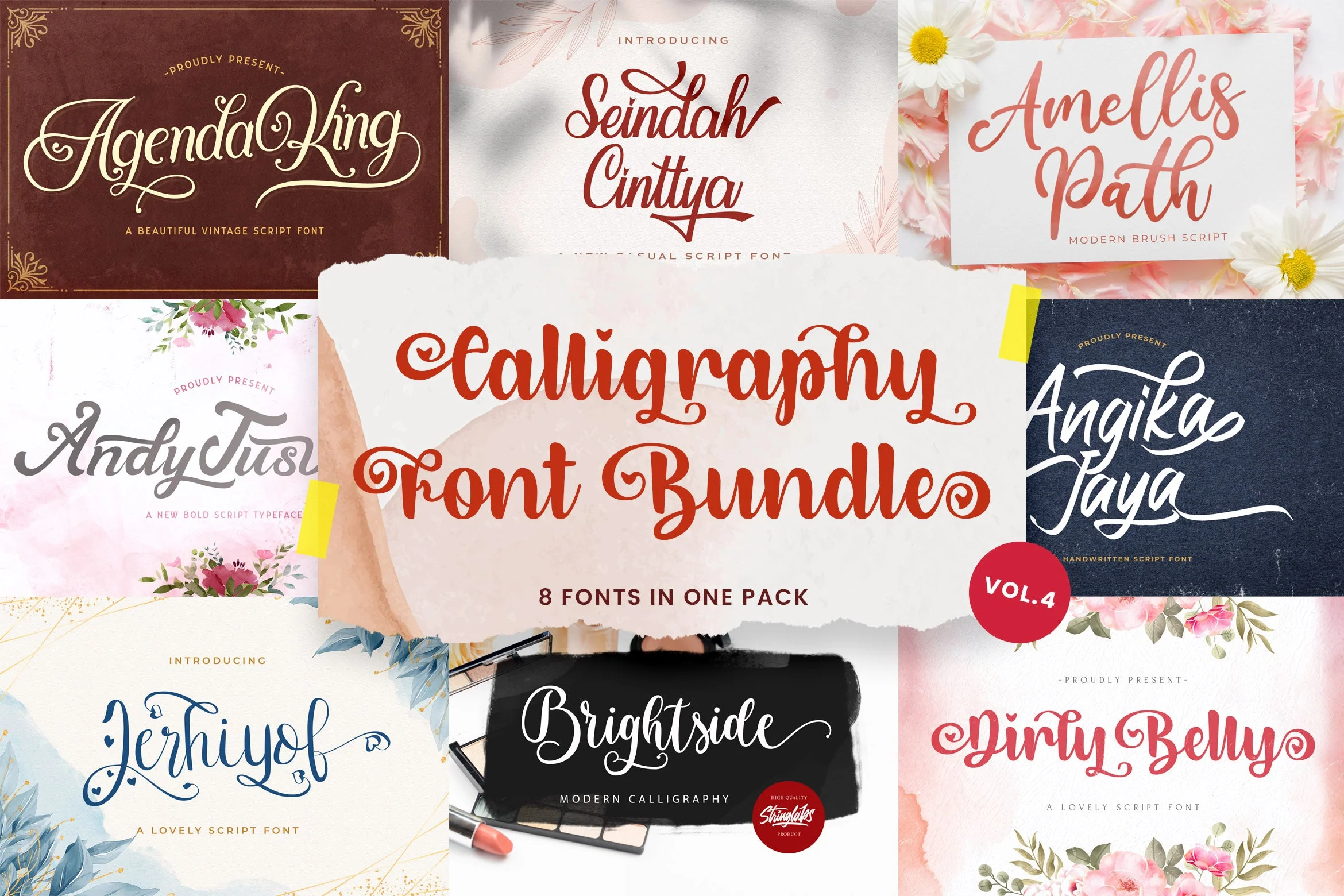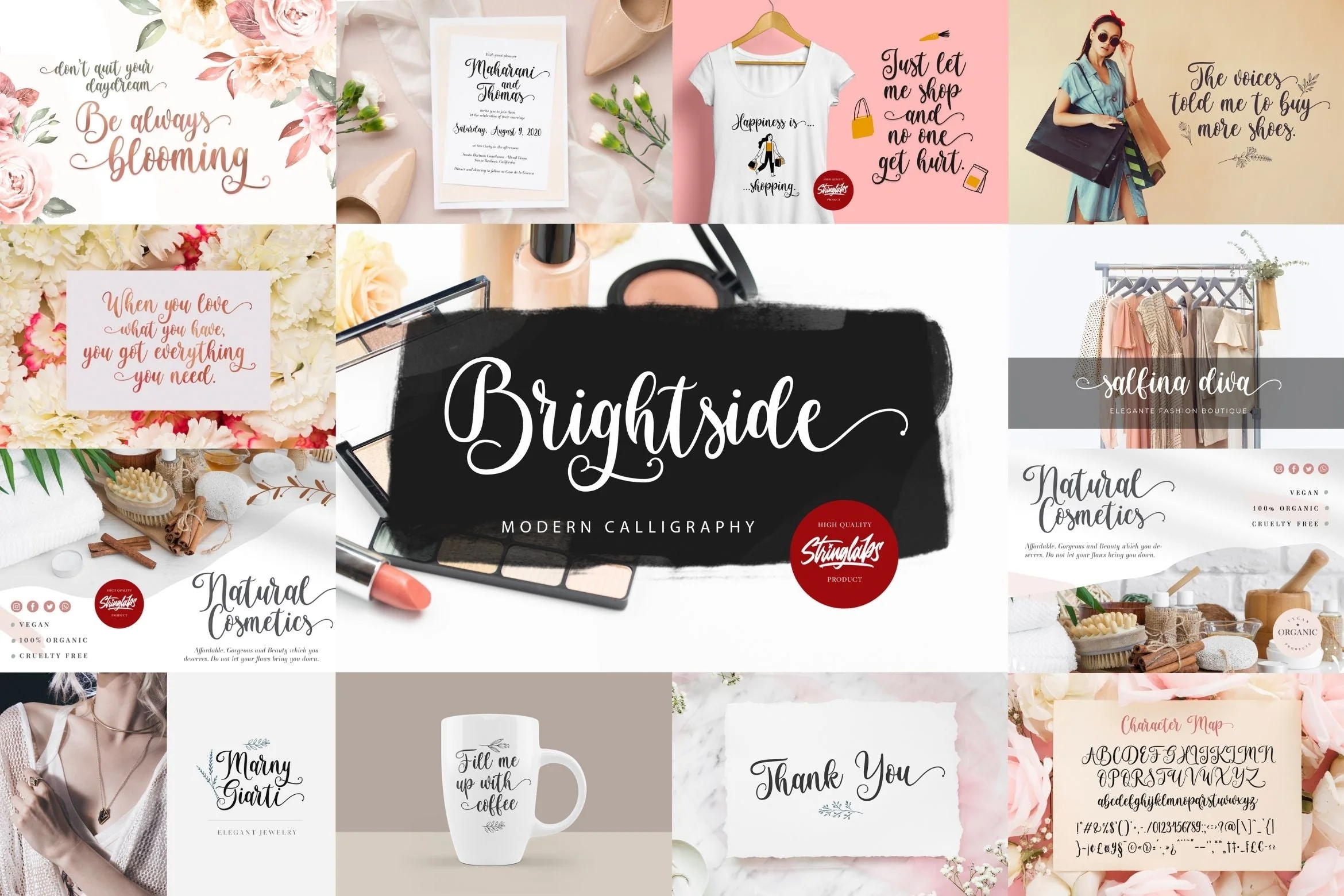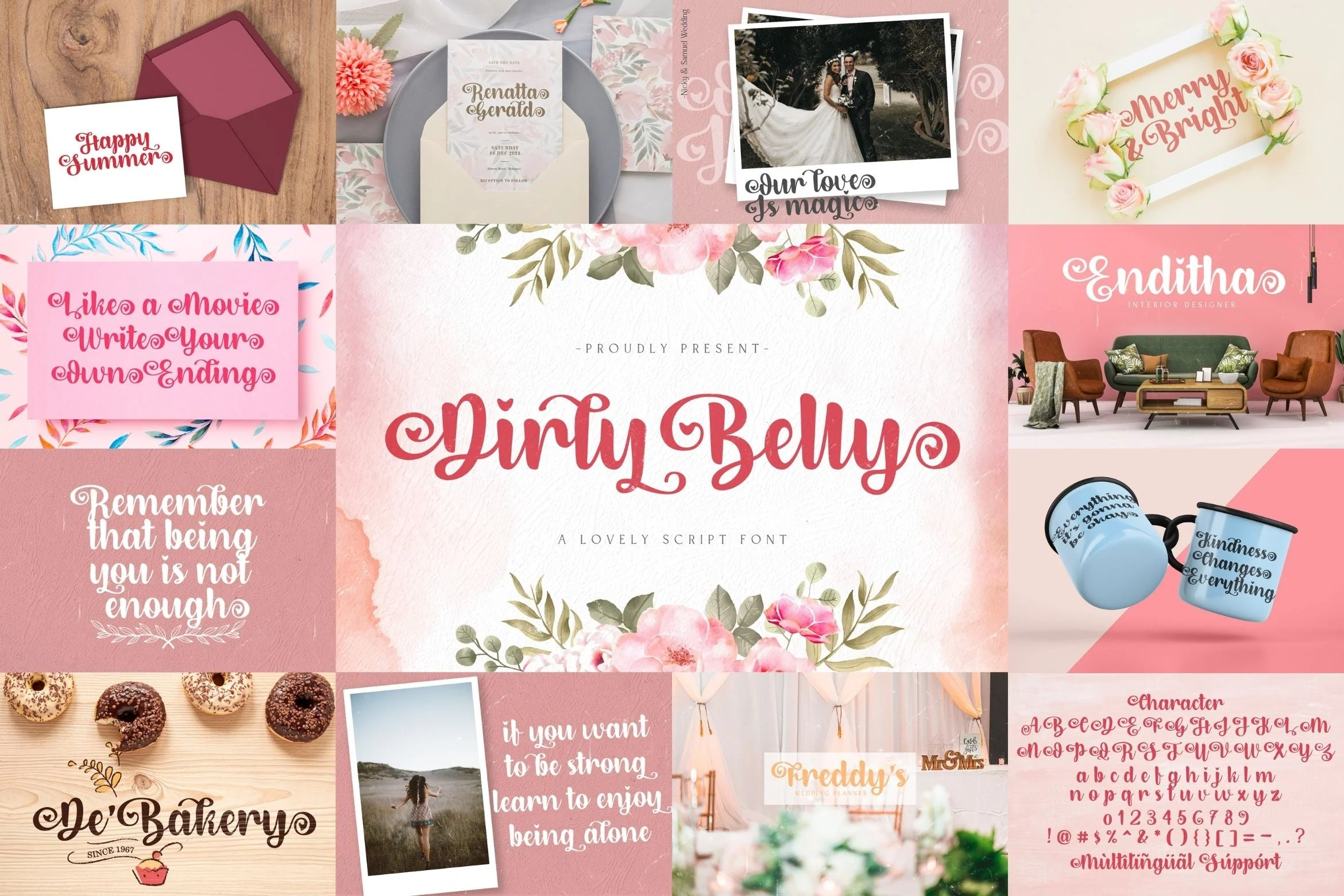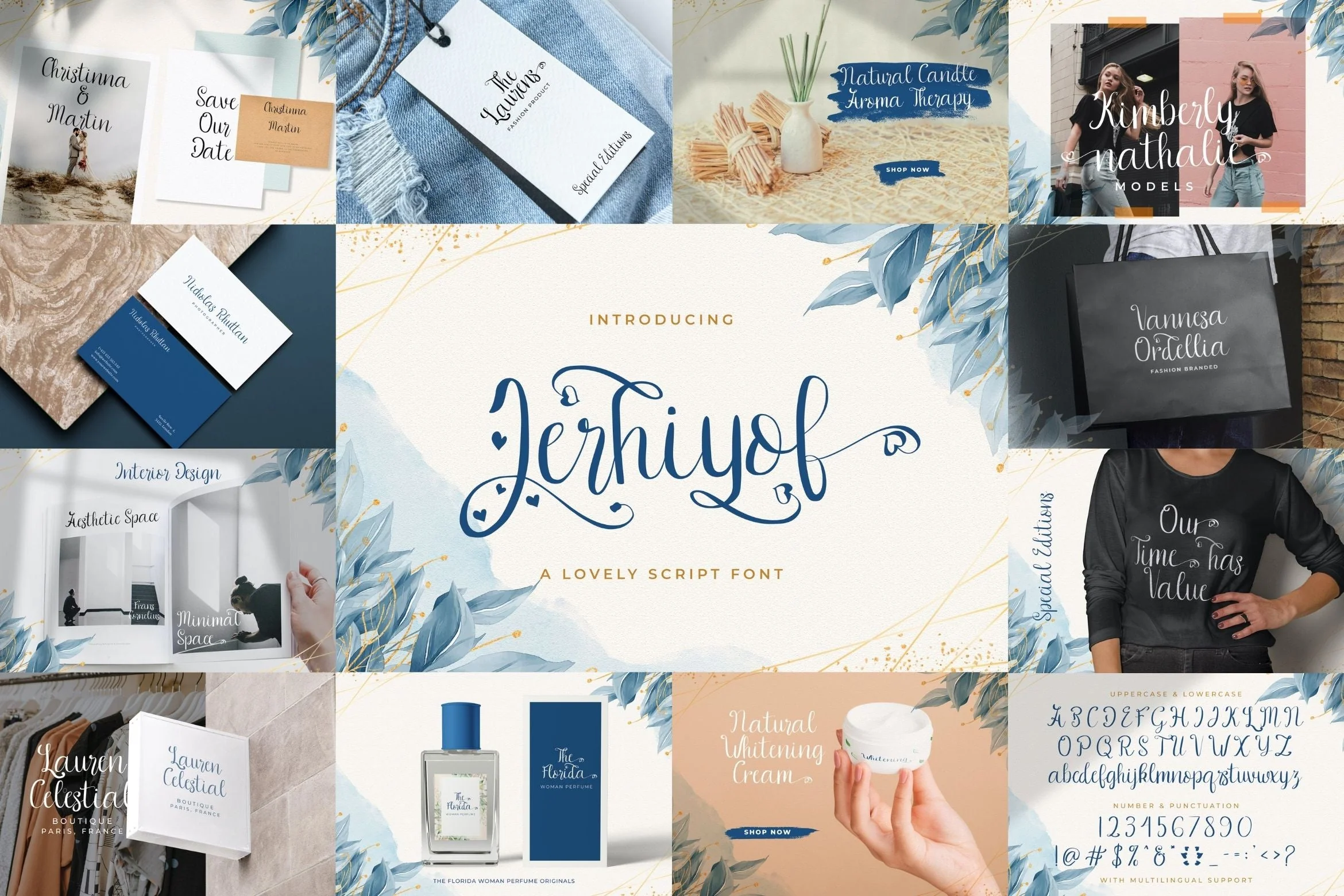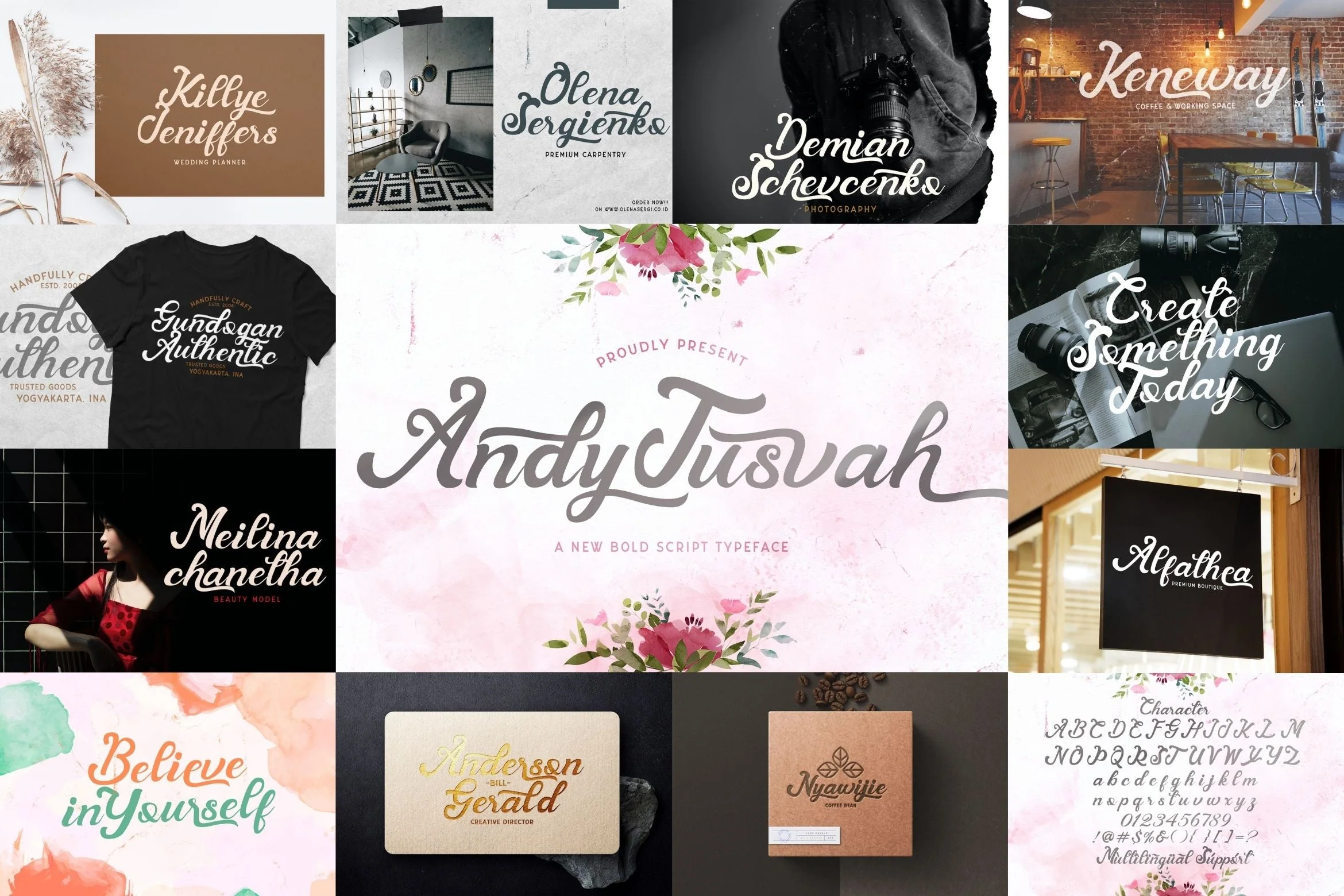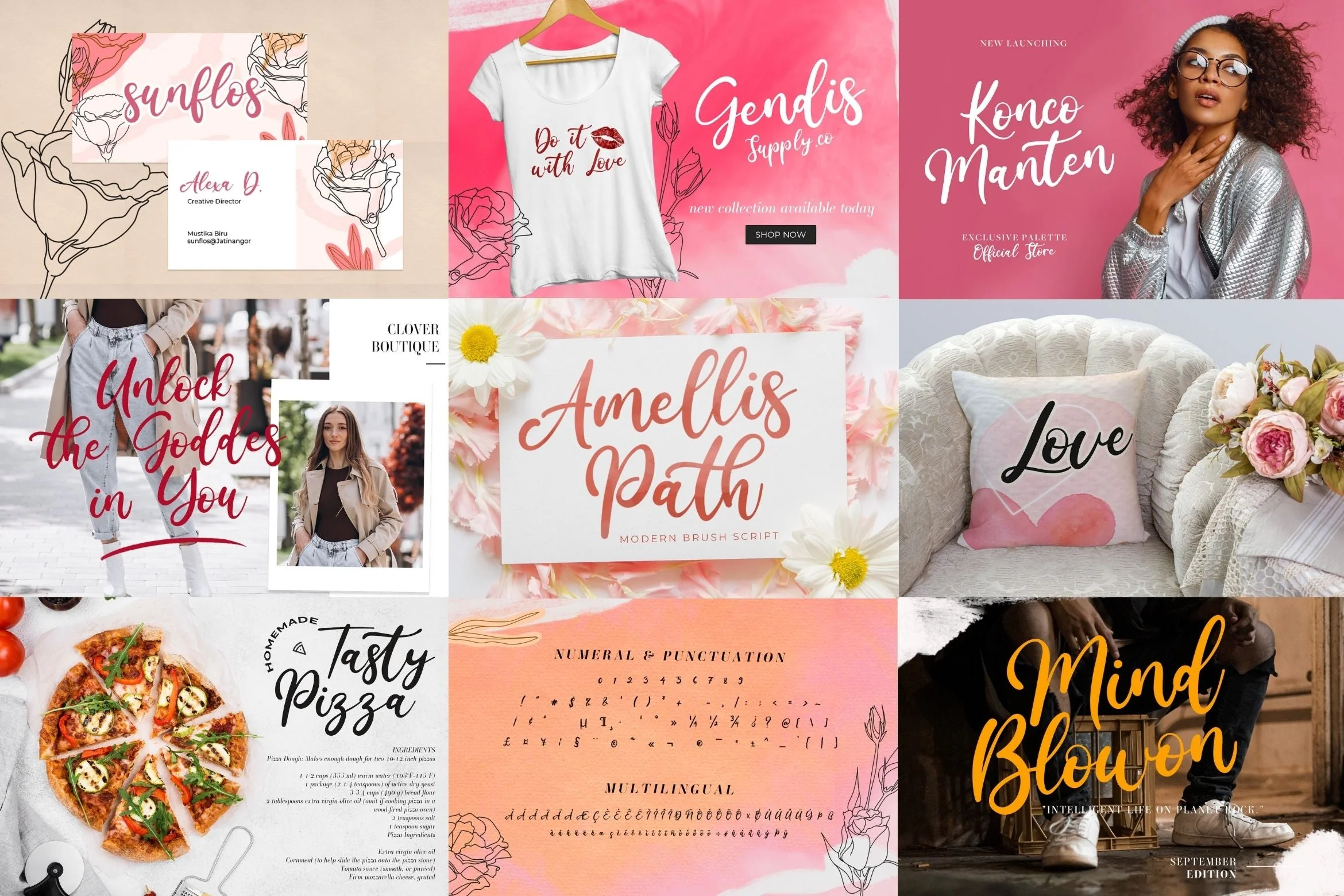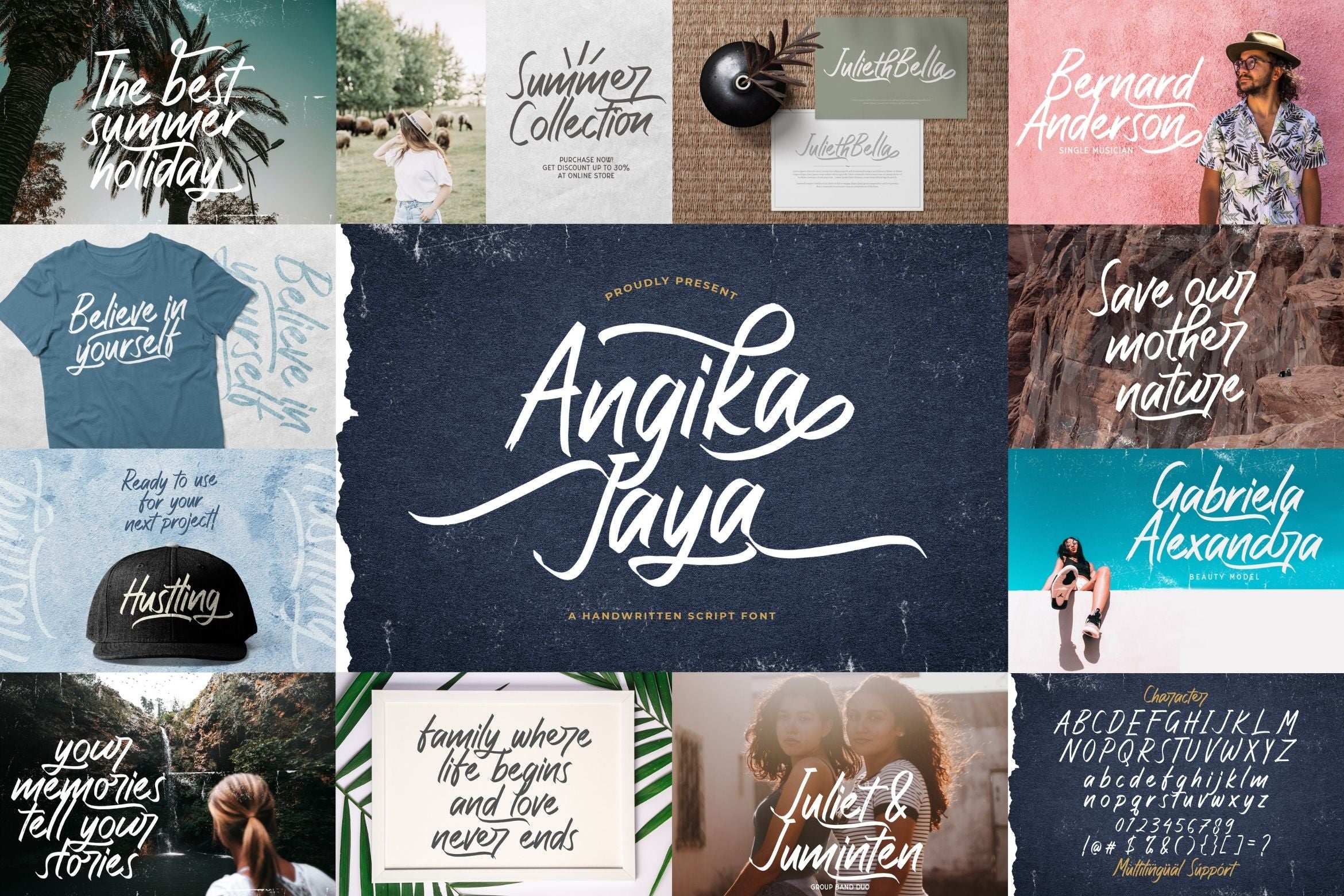
Calligraphy Font Bundle Vol 4
Calligraphy Font Bundle Vol 4 is a delicate, elegant and flowing calligraphy font. This font bundle contains 8 high quality handwritting calligraphy script font, it will look simply magical in a wide range of design projects, and also that will look particularly adept when used in logos, branding, packaging design, and much more. It has beautiful and well balanced characters and as a result, it matches a wide pool of designs. Add it to your most creative ideas and notice how it makes them come alive!
1. Agenda King
2. Angika Jaya
3. Amellis Path
4. Seindah Cinttya
5. Andy Tusvah
6. Jerhiyof
7. Dirly Belly
8. Brightside